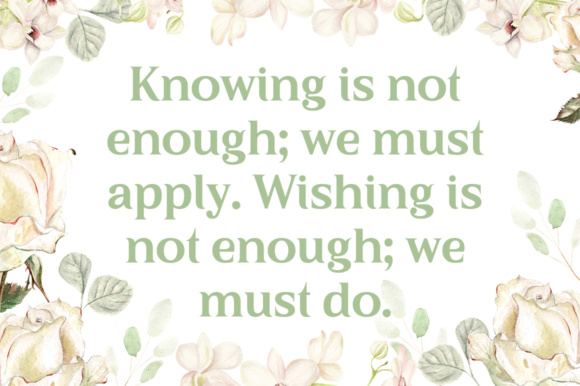
Where Elegance Meets Design
Have you ever been brainstorming a new project, flipping through a design catalog, or simply scrolling through your social media feeds, and suddenly, you’re struck by a font that says it all? For many designers, this moment of inspiration is what drives their creative process forward. It’s the ‘aha’ moment when everything falls into place, and the perfect font is just what’s needed to elevate the design to the next level.
For those designers seeking that perfect font, look no further than the Elegance Font. This soft, sophisticated, and spring-time inspired serif font has captured the hearts of designers worldwide with its approachable and kind feel. Whether you’re working on a wedding invitation, a magazine spread, or a product label, the Elegance Font is sure to bring a touch of elegance to your design.
Elegance Font Key Features
- Font Family: Elegance Font is a high-end, professional font family that includes multiple styles and weights.
- Unique Characteristics: Elegance Font features a unique blend of classic and modern elements, with subtle flair and sophistication.
Elegance Font Review
I’ve had the chance to work with the Elegance Font, and I must say it’s a beautiful addition to any design project. ✨ The font’s elegant curves and refined lines make it perfect for high-end branding, magazines, and other materials where sophistication is key. It’s also surprisingly versatile, making it suitable for a wide range of applications, from digital to print.
- ✨ The font’s unique style and subtle flair make it stand out from more common sans-serif fonts.
- ✨ The font’s high x-height and balanced proportions make it easy to read and set in larger blocks of text.
- ✨ The font’s elegant feel makes it a great choice for luxury brands and high-end design projects.
However, there are a few limitations to consider. ⚠️ The font may be too ornate for some projects, particularly those that require a more straightforward or minimalist aesthetic. Additionally, the font’s high detail may make it more difficult to use in certain digital applications, such as small text or low-resolution displays.
Overall, I’m impressed with the Elegance Font’s elegance and versatility. While it may not be the best choice for every project, it’s certainly a valuable addition to any designer’s toolkit. With a little creativity and restraint, the Elegance Font can elevate any design project to new heights.
Tips for Getting the Most Out of Elegance Font
To get the most out of the Elegance Font, use it sparingly and in strategic locations. The font is elegant and sophisticated, so it’s best used for formal or professional designs. Experiment with different font sizes and styles to create a visually appealing design. You can also pair the Elegance Font with other fonts to create a unique and stylish look.
The Elegance Font is commonly used for:
- Formal event invitations
- High-end product packaging